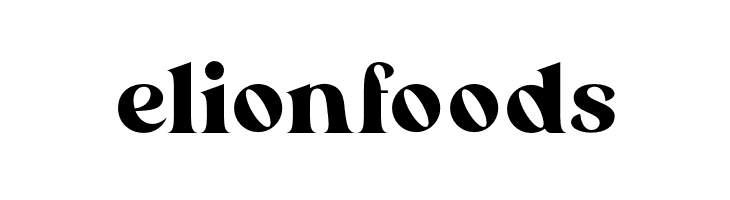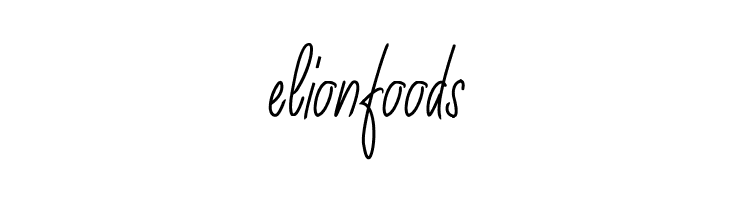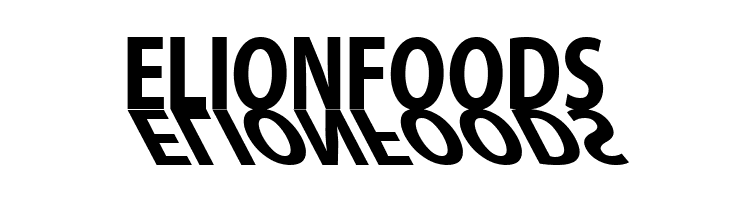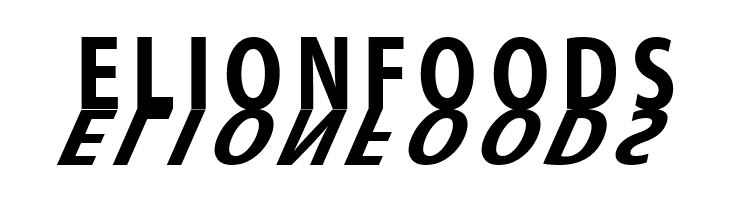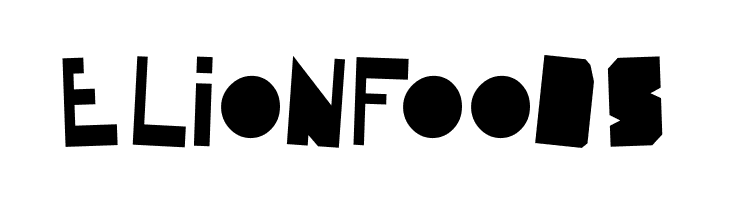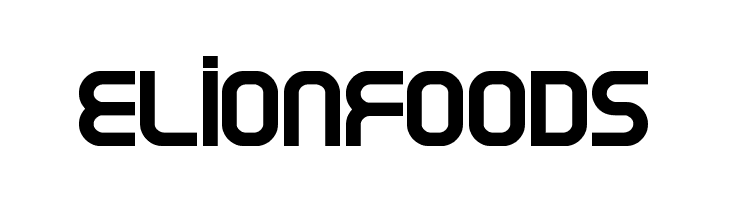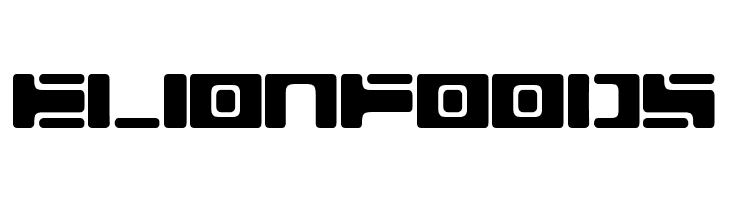
A bold, futuristic font with geometric and abstract elements.
A bold, modern font with mirrored shadow effects for a 3D look.
A bold, shadowed font with a modern, geometric style and italicized slant.
A refined and elegant typeface with thin, elongated strokes and decorative flourishes.
A playful, hand-drawn font with exaggerated, uneven strokes and a whimsical flair.
A bold, geometric font with a digital, pixel-art style.
A playful and bold font with rounded, whimsical letterforms.
A graceful and elegant script font with flowing, cursive letterforms.
A graceful script font with elegant, flowing cursive strokes.
A bold, geometric font with a futuristic and modern aesthetic.
A decorative font with UFO and alien spacecraft designs.
A modern, geometric font with bold, rounded characters and tight spacing.
A bold, textured brush-style font with an artistic, hand-drawn appearance.
A playful, hand-drawn font with bold, rounded characters and a whimsical style.
An ornate and decorative script font with elegant swirls and flourishes.
A bold, playful font with rounded edges and a hand-drawn feel.
A bold, pixelated font with a playful, retro digital aesthetic.
A sleek, modern font with geometric influences and rounded edges.
A Gothic-style font with sharp, angular lines and ornate detailing, ideal for dramatic and vintage designs.
A whimsical, decorative font with tall, narrow letterforms and artistic details.
A playful, decorative font with whimsical serifs and exaggerated curves.
A geometric, modular font with a digital, pixelated appearance.
A dynamic and expressive script font with fluid, cursive letterforms.
A bold, cursive script font with high contrast and elegant flow.
A bold, high-contrast serif font with sharp serifs and elegant curves.
A bold, geometric font with a futuristic, mechanical aesthetic.